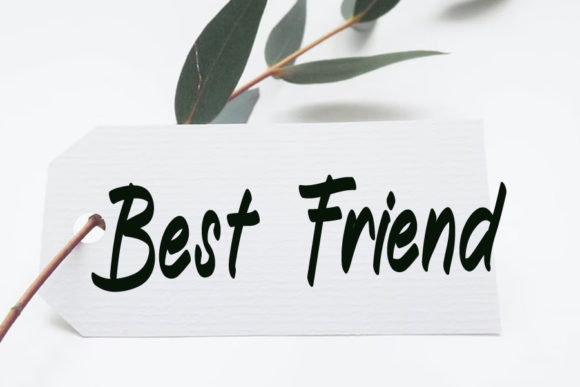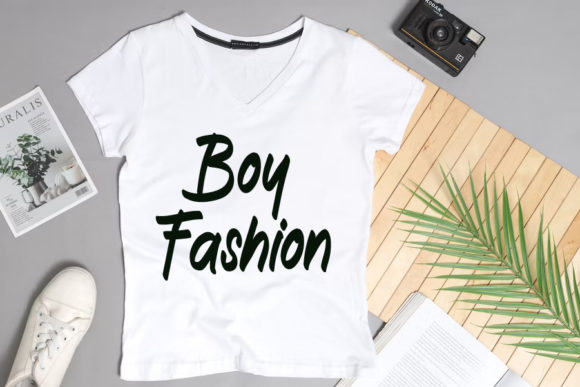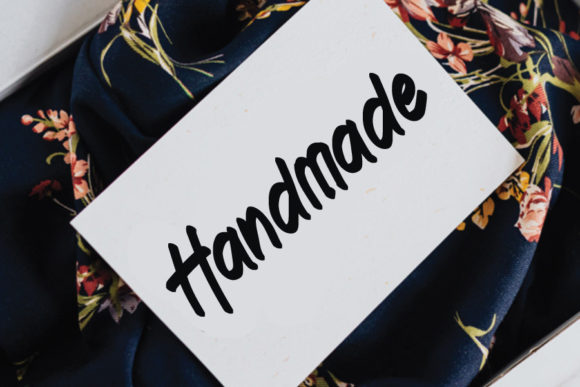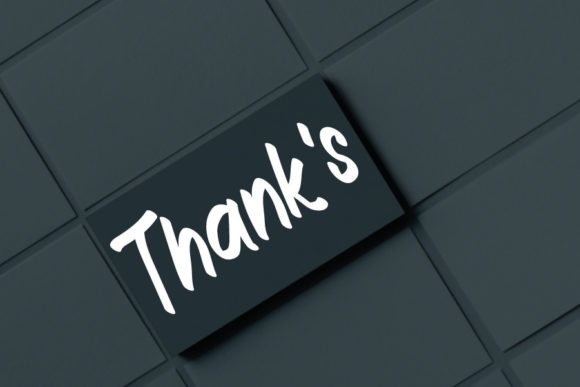
Hello Brother Font: Elevate Your Designs with Elegance
In the world of typography, fonts play a crucial role in conveying the tone and aesthetic of a design. For those seeking a touch of elegance and sophistication, the Hello Brother Font stands out as a remarkable choice. This distinct and graceful script font has captured the hearts of designers and crafters alike, and for good reason. In this article, we’ll delve into the captivating features of Hello Brother Font and explore how it can elevate your designs to new heights.
The Allure of Hello Brother Font
Hello Brother Font is a masterpiece of typographic artistry, boasting a unique blend of classic charm and modern flair. Its ravishing style is sure to leave a lasting impression, making it perfect for a wide range of design applications, from wedding invitations and branding materials to digital graphics and craft projects. The font’s elegant lines, flowing curves, and intricate details come together to create a truly stunning visual experience.
PUA Encoding: Unlocking Endless Creative Possibilities
One of the standout features of Hello Brother Font is its PUA (Private Use Area) encoding. This means that users can access a vast array of glyphs and swashes with ease, allowing for unparalleled creative freedom. With PUA encoding, you can effortlessly navigate the font’s extensive character set, incorporating beautiful swashes, ligatures, and alternates into your designs. This level of versatility makes Hello Brother Font an excellent choice for designers and crafters seeking to add a personal touch to their work.
Design Applications: Where Hello Brother Font Shines
Hello Brother Font’s versatility makes it suitable for a wide range of design applications. Here are just a few examples of where this magnificent font can make a lasting impact:
- Wedding Invitations: Add a touch of romance and sophistication to your wedding stationery with Hello Brother Font.
- Branding Materials: Elevate your brand’s visual identity with a font that exudes elegance and refinement.
- Digital Graphics: Create stunning social media graphics, blog headers, and more with Hello Brother Font’s unique charm.
- Craft Projects: Bring a touch of personality to your craft projects, such as handmade cards, scrapbooking, and DIY decorations.
Tips for Working with Hello Brother Font
To get the most out of Hello Brother Font, here are a few expert tips to keep in mind:
- Experiment with Swashes: Don’t be afraid to get creative with the font’s swashes and ligatures to add a personal touch to your designs.
- Mix and Match: Combine Hello Brother Font with other fonts to create a unique visual hierarchy and add depth to your designs.
- Pay Attention to Kerning: Take the time to adjust the kerning and tracking to ensure that your text looks polished and refined.
Hello Brother Font is a true gem in the world of typography, offering a distinct and graceful script font that is sure to captivate designers and crafters alike. With its PUA encoding, ravishing style, and versatility, this font is perfect for a wide range of design applications. Whether you’re looking to create stunning wedding invitations, elevate your brand’s visual identity, or add a touch of personality to your craft projects, Hello Brother Font is an excellent choice. So why wait? Fall for the charm of Hello Brother Font and unlock a world of creative possibilities.